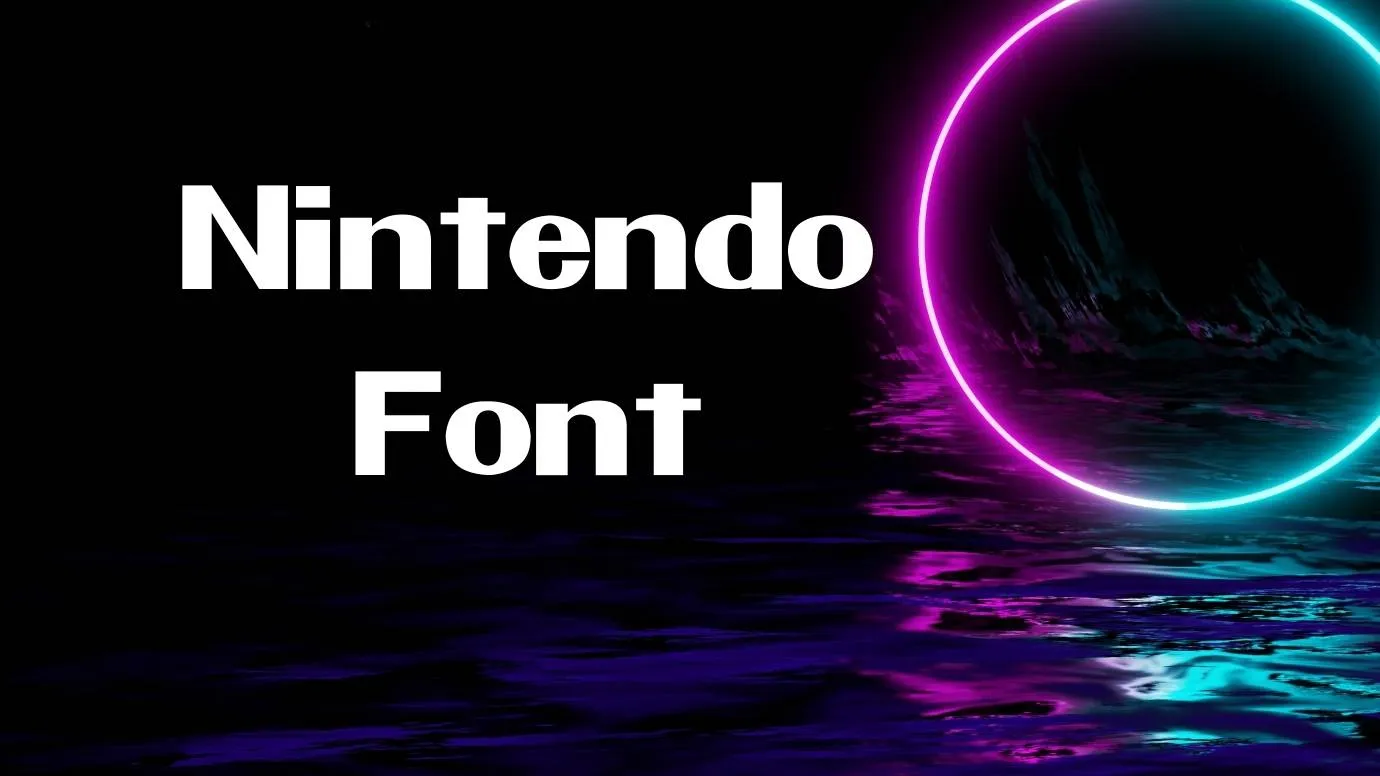
Nintendo Font Family is a modern typeface that comes in the sans serif category in the font world. Mr. Erwin Denissen designed and shared this font via the High Logic font foundry in 1999. Basically, Nintendo is a Japanese company that consists of electronics.
The font that is used for the creation of this company logo comes in more than 361 unique and thin corner look characters including some symbols, alphabets, punctuation marks,
Nintendo Font